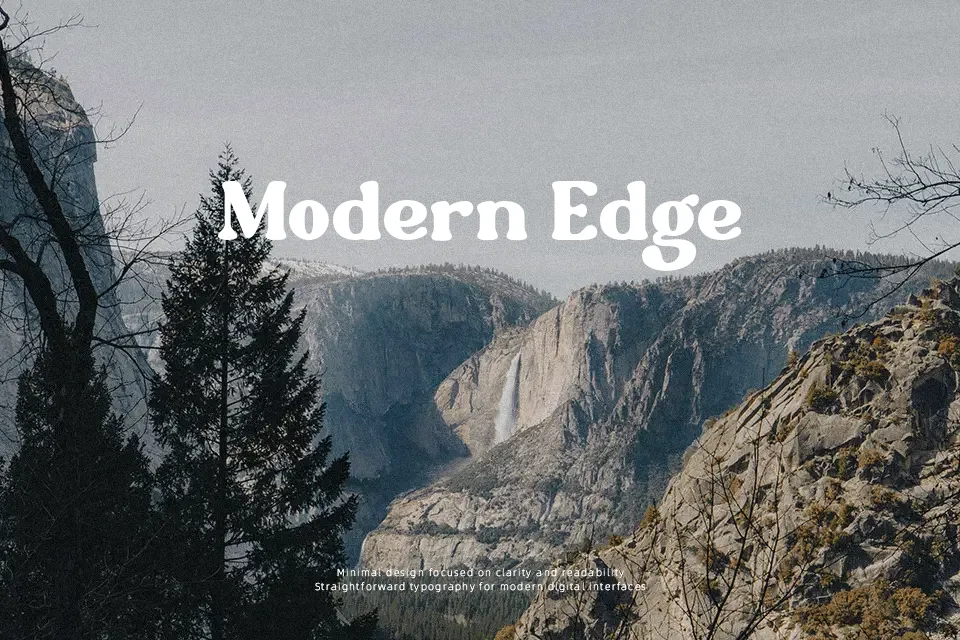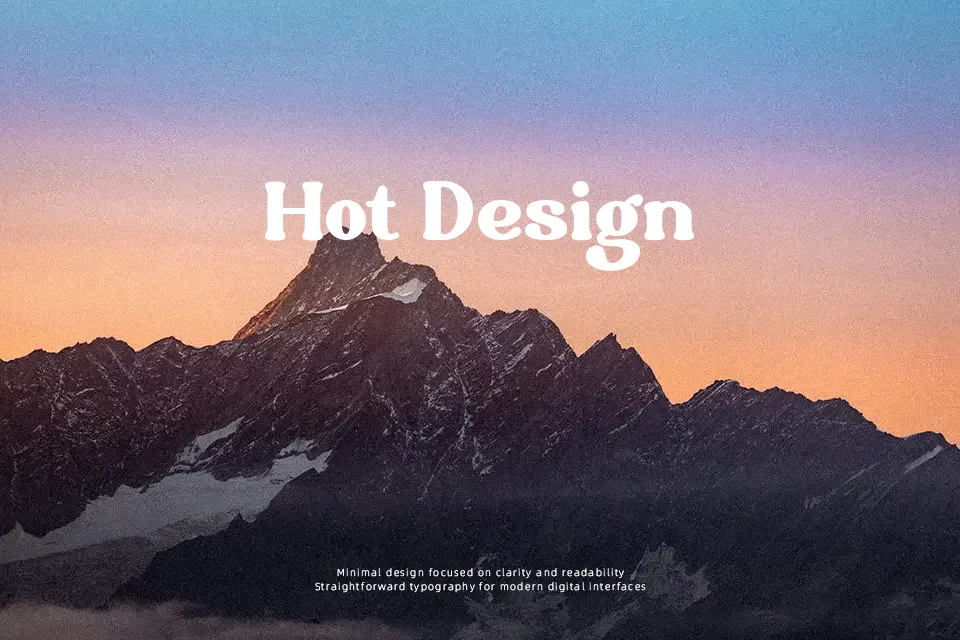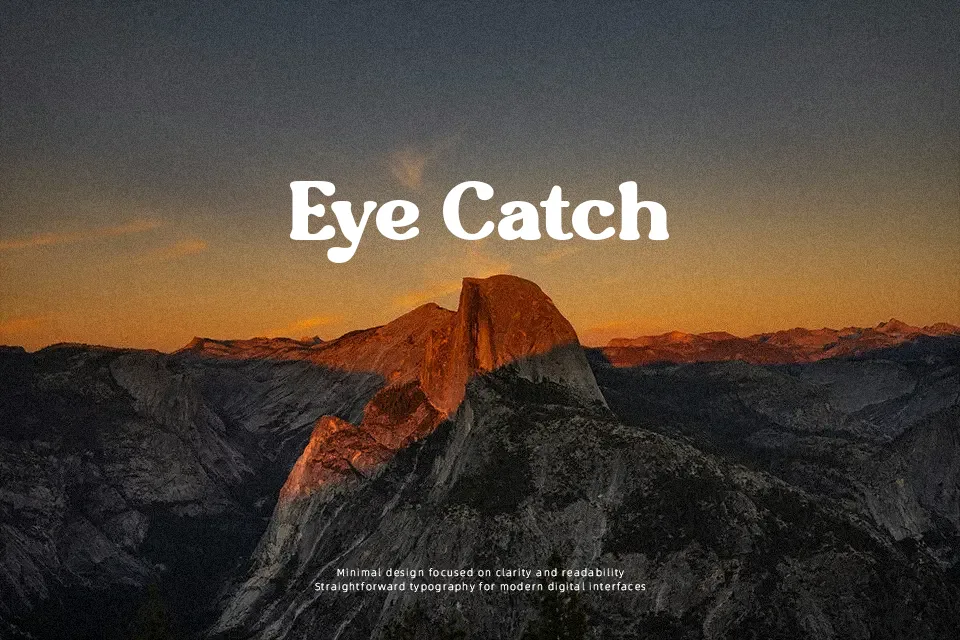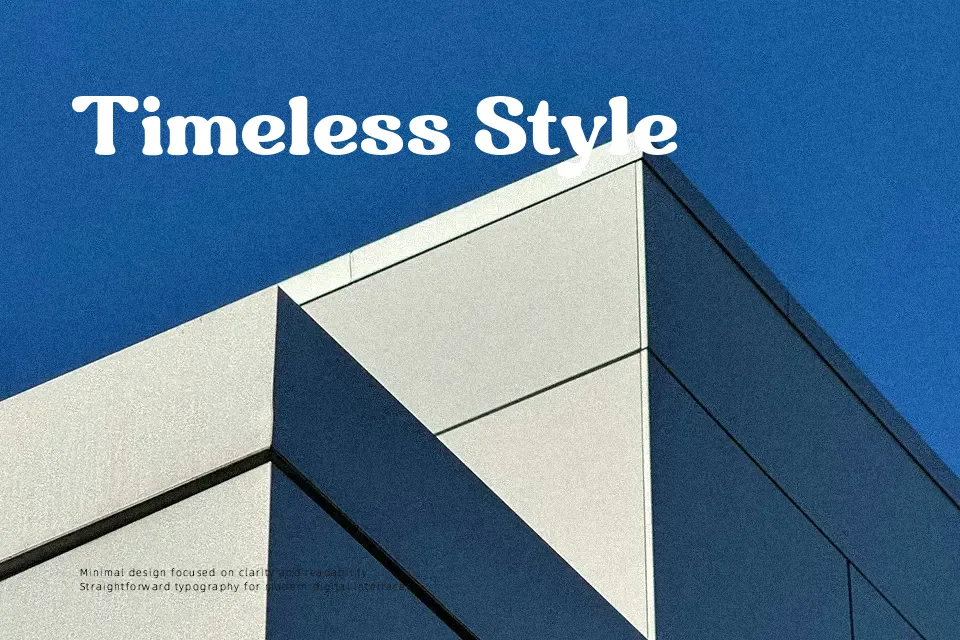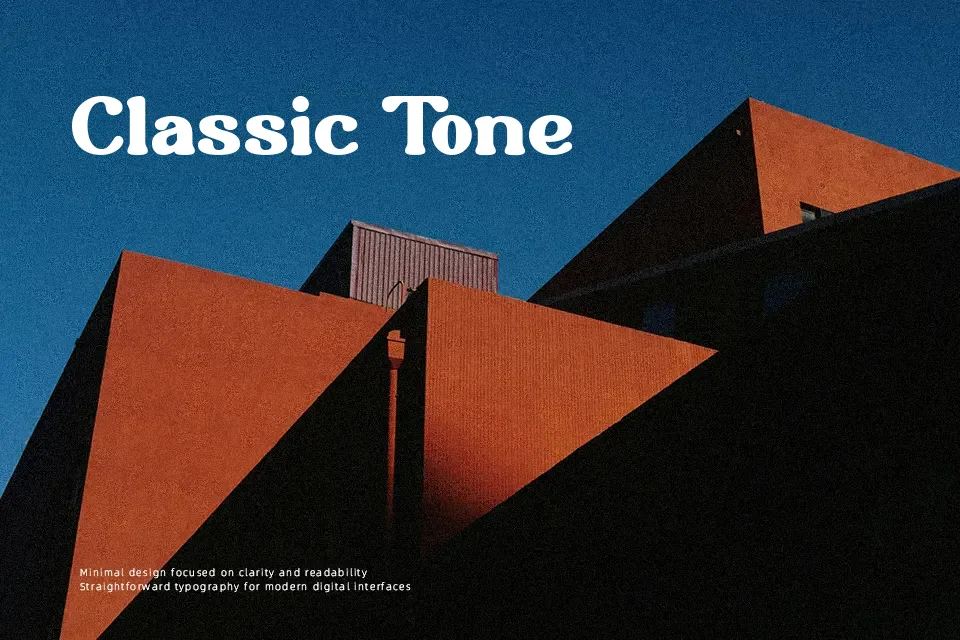
Ripe Mango Font
Ripe Mango Font establishes a strong visual presence with its thick, smoothly curved letterforms that immediately evoke a sense of nostalgic warmth. The generous proportions and bold strokes give the typeface a confident, heavy structure that works exceptionally well in large display contexts. Its balanced but tight spacing ensures that headlines feel cohesive and impactful without losing their distinct shapes. Because of its highly decorative nature and substantial stroke weight, the letterforms remain easy to distinguish in short display text but become less effective at smaller sizes. This typeface performs best when utilized for eye-catching branding or vibrant posters, as its dense forms reduce comfort during extended reading and are not recommended for long paragraphs.
vintage product packaging
vibrant event posters
retro apparel graphics
coffee shop branding
Perfect for branding, headline, and packaging, with a bold and decorative style.